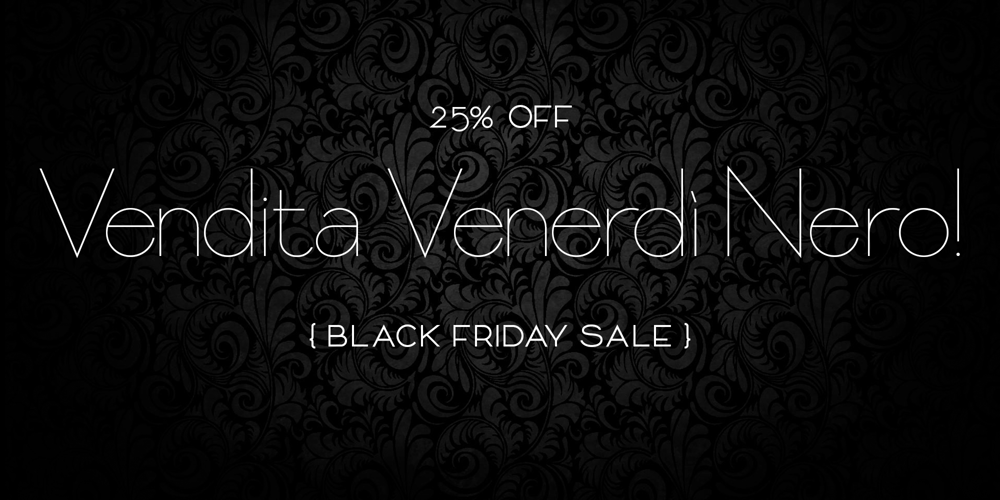
Citarella Gothic Font Family was designed by Don Citarella and published by Don Citarella. Citarella Gothic contains 3 styles and family package options. In seeking a strong, utilitarian gothic alternative for Helvetica, we’re left with few options for unobtrusive functionalism. As such, we decided to create the Citarella Gothic family. The ligatures are characteristic of the signage and architecture around Sarno, where the Citarella family originates. The sweeping arcs, broad counters, and clean swashes allow for the architectural design to be imbued with the warmth and humanity of its namesake.